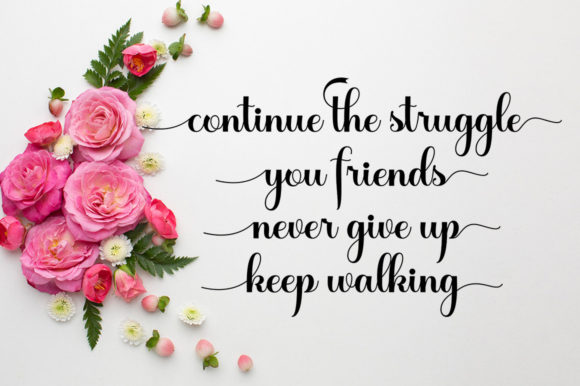
About Chellin Font
Chellin is a modern, bold and elegant handwritten font. It looks beautiful on a variety of designs requiring a personalized style, such as wedding invitations, thank you cards, weddings, greeting cards, logos and so on. This font is PUA encoded which means you can access all of the glyphs and swashes with ease!